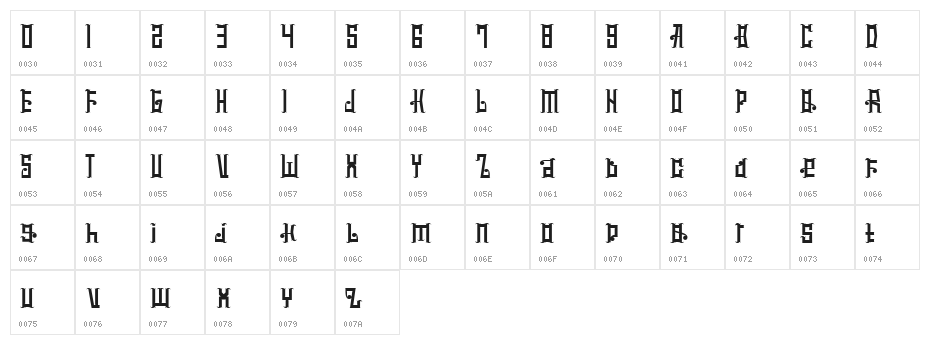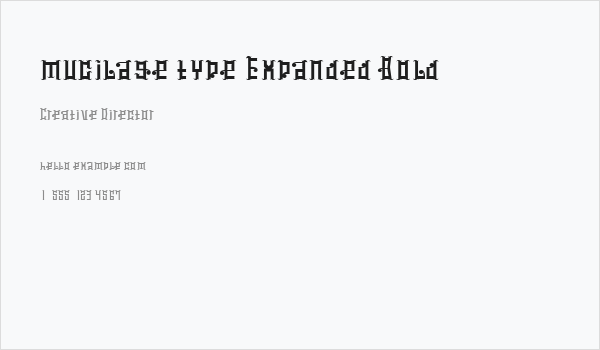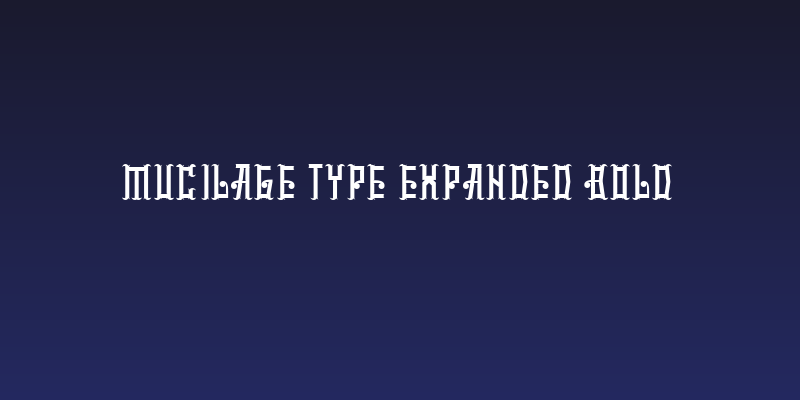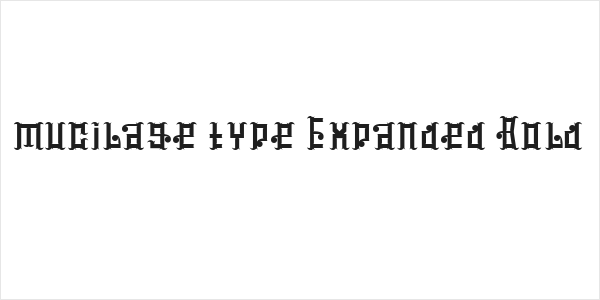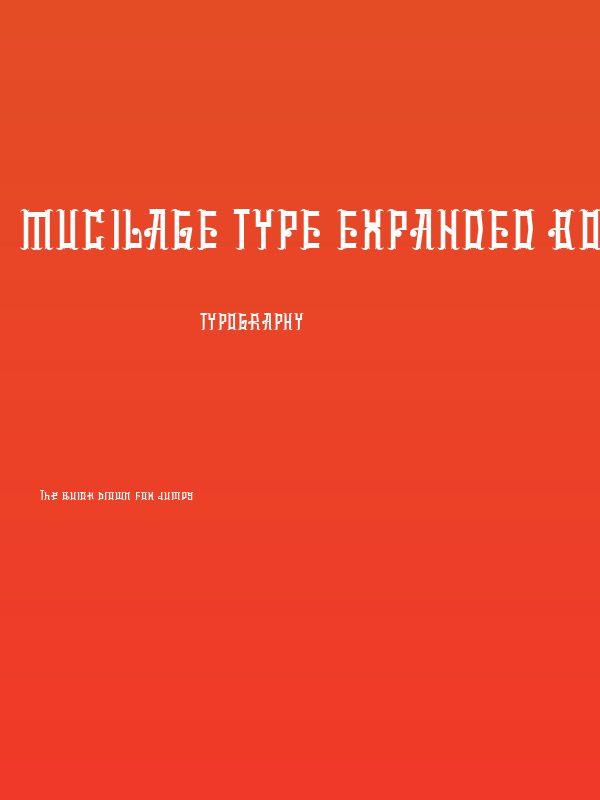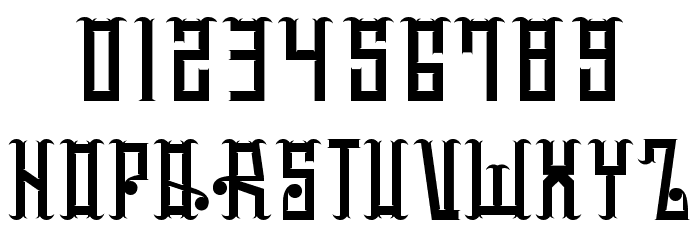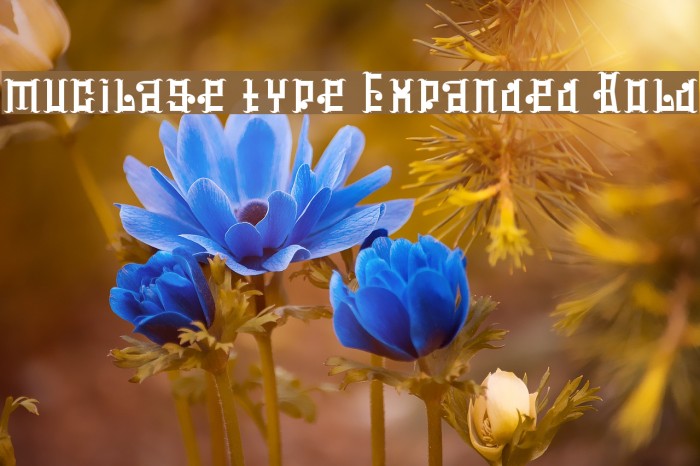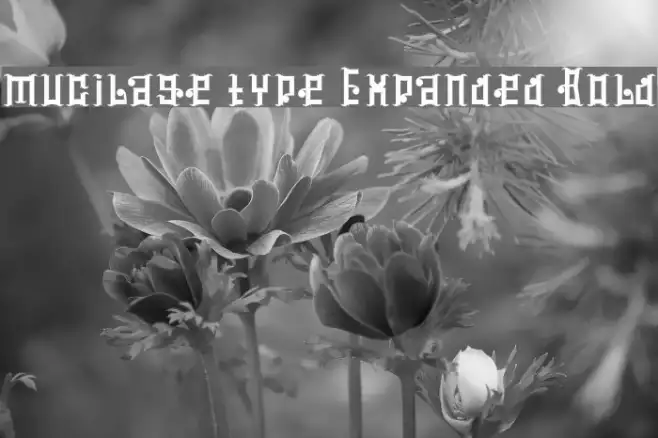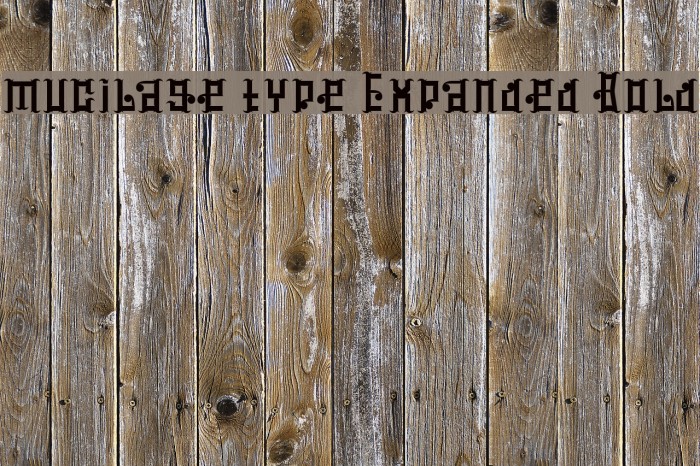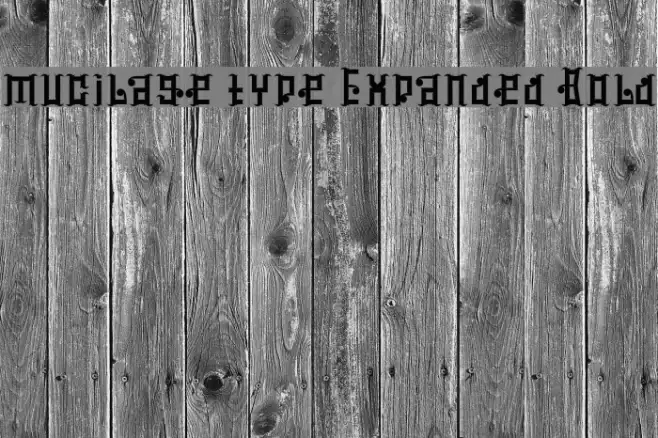
mucilage type Expanded Bold Font
mucilage type Expanded Bold Description
This font features a bold and striking design with a distinct blackletter influence. The characters are highly stylized with sharp, angular lines and intricate details, giving it a medieval and gothic appearance. The uppercase and lowercase letters maintain a consistent style, with exaggerated serifs and unique embellishments that add to its decorative nature. The numbers and special characters follow the same ornate pattern, ensuring uniformity across the typeface. Its expanded width and bold weight make it stand out, ideal for creating a dramatic impact.
| Overall Style | Gothic |
| Use Case | Headlines, Logos, Decorative purposes |
| Proposed Projects | Ideal for projects requiring a medieval or gothic aesthetic, such as themed event posters, book covers for fantasy novels, or branding for alternative fashion lines. |